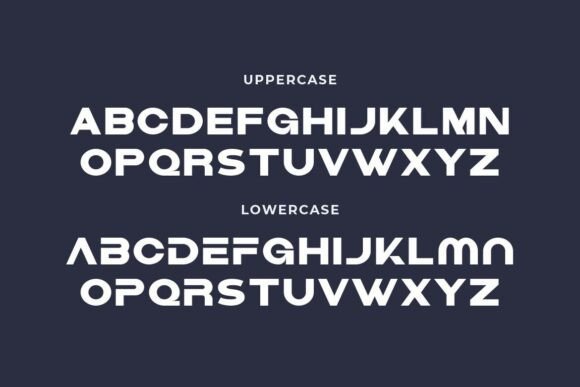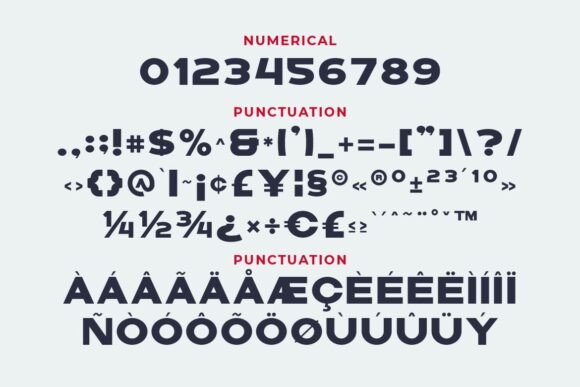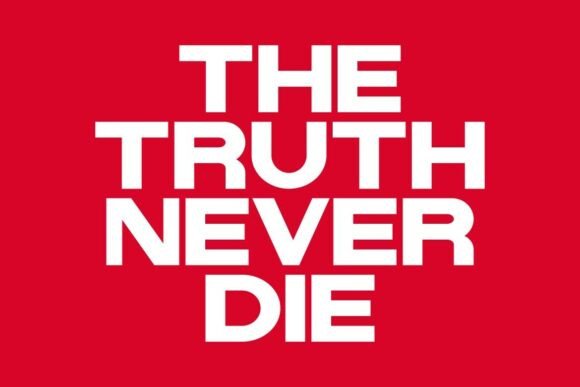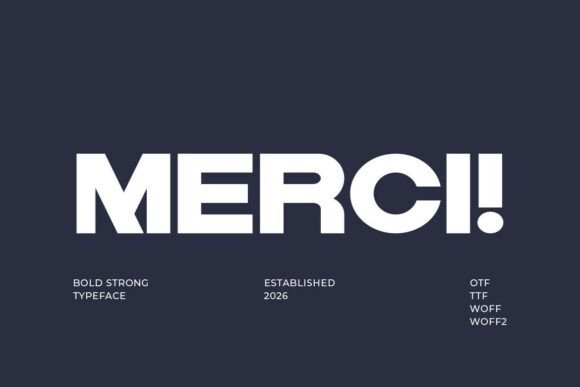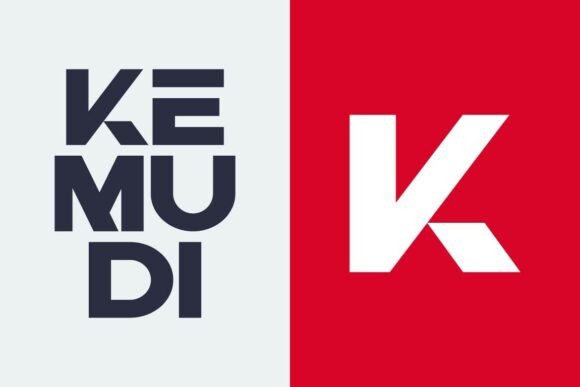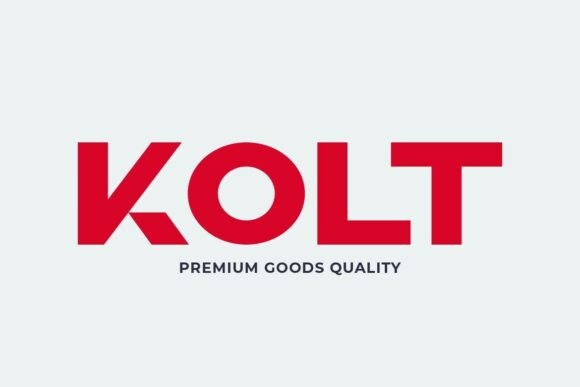
Golie Font: Elevate Your Brand with Elegance and Sophistication
In the world of typography, fonts play a crucial role in shaping the identity of a brand. A well-crafted font can instantly convey a sense of luxury, sophistication, and elegance, making it a vital element in branding and design. One such font that has gained significant attention in recent times is the Golie Font, specifically designed for elegant and feminine branding. In this article, we’ll explore the features and benefits of the Golie Font, and how it can elevate your brand to new heights.
Introducing Vetto: A Premium Luxury Sans Serif Typeface
Vetto is a premium luxury sans serif typeface designed for elegant and feminine branding. With clean lines, refined proportions, and a modern aesthetic, Vetto delivers a sophisticated and high-end look that fits perfectly in boutique, fashion, beauty, and makeup industries. This font is carefully crafted to provide a luxurious feel, making it an ideal choice for designers and crafters looking to create stunning branding materials.
Key Features of Vetto Font
- Clean Lines and Refined Proportions: Vetto’s clean lines and refined proportions give it a sleek and modern look, making it perfect for brands that want to convey a sense of sophistication and elegance.
- Modern Aesthetic: The font’s modern aesthetic ensures that it stays ahead of the curve, making it suitable for brands that want to appear fresh and contemporary.
- Sophisticated and High-End Look: Vetto’s design is carefully crafted to provide a sophisticated and high-end look, making it ideal for luxury brands, boutiques, and high-end fashion labels.
Benefits of Using Vetto Font
Using Vetto font can bring numerous benefits to your brand, including:
- Instant Brand Recognition: A unique and elegant font like Vetto can help create instant brand recognition, setting your brand apart from competitors.
- Enhanced Brand Credibility: A high-end font like Vetto can enhance your brand’s credibility, making it appear more luxurious and sophisticated.
- Versatility: Vetto font can be used across various platforms, from digital media to print materials, ensuring consistency in your brand’s visual identity.
Industries That Can Benefit from Vetto Font
Vetto font is particularly suitable for industries that require a high-end and elegant visual identity, including:
- Boutique and Fashion: Vetto font is perfect for boutiques, fashion labels, and luxury brands that want to convey a sense of sophistication and elegance.
- Beauty and Makeup: The font’s modern aesthetic and refined proportions make it an excellent choice for beauty and makeup brands that want to appear fresh and contemporary.
Tips for Using Vetto Font Effectively
To get the most out of Vetto font, here are some tips to keep in mind:
- Use it Consistently: Use Vetto font consistently across all your branding materials to create a cohesive visual identity.
- Experiment with Font Sizes and Styles: Experiment with different font sizes and styles to create visual hierarchy and add depth to your designs.
- Pair it with Other Fonts: Pair Vetto font with other fonts to create a unique and visually appealing typography.
In conclusion, the Golie Font, specifically Vetto, is a premium luxury sans serif typeface designed for elegant and feminine branding. With its clean lines, refined proportions, and modern aesthetic, Vetto delivers a sophisticated and high-end look that fits perfectly in boutique, fashion, beauty, and makeup industries. By using Vetto font, designers and crafters can create stunning branding materials that elevate their brand to new heights. Whether you’re looking to create a luxurious feel or want to convey a sense of sophistication and elegance, Vetto font is an excellent choice.